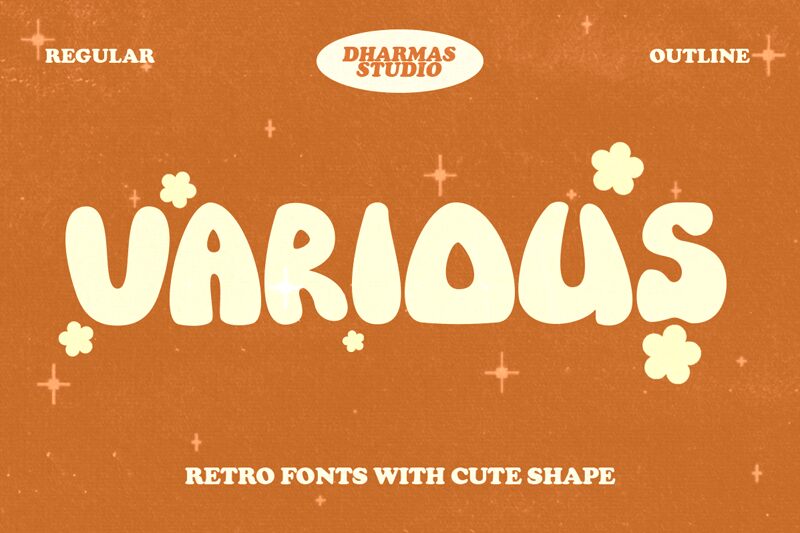
Various DEMO Regular
Various, a creation of Dharmas Studio, is a display font that exudes a groovy vibe reminiscent of the psychedelic era. Its bold and curvaceous letters dance with an inherent rhythm that captures the essence of fun and flamboyance. The font's stylized character forms make a statement with their playful loops and whorls, striking an immediate visual impact.
This font's boldness paired with its unorthodox flair makes it perfect for design projects that aim to stand out. Ideal for eye-catching headers, logos, posters, and any creative work where personality is key, Various ensures your message won't just be seen-it'll be felt.